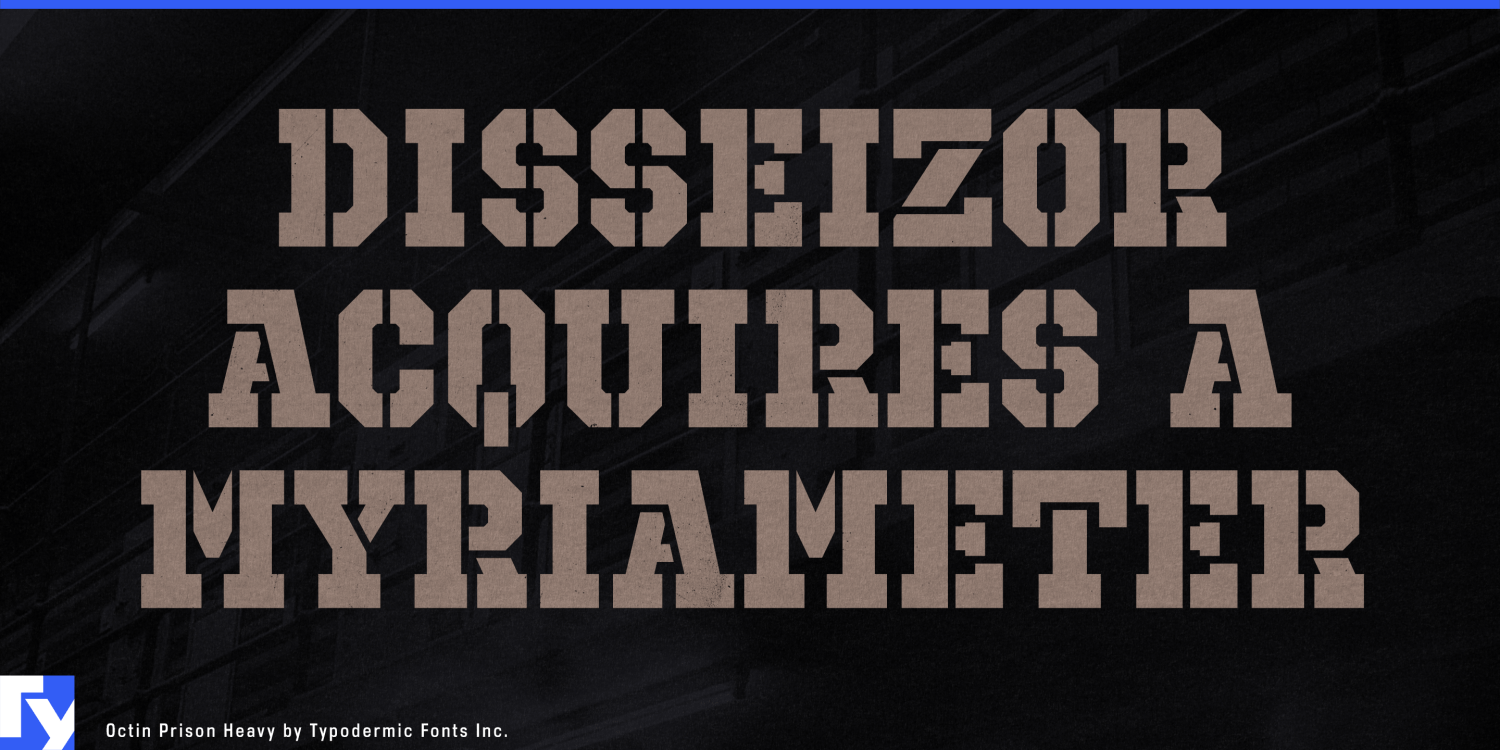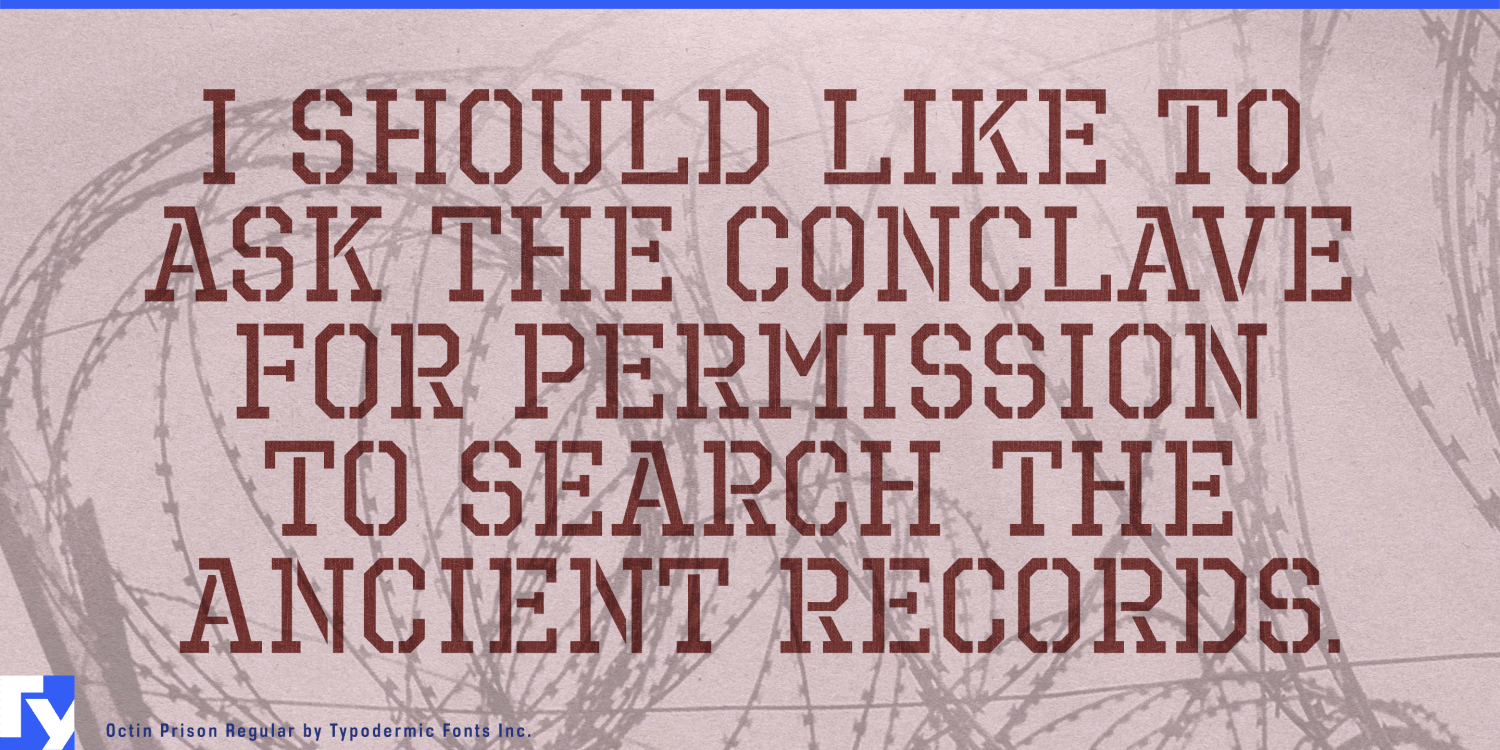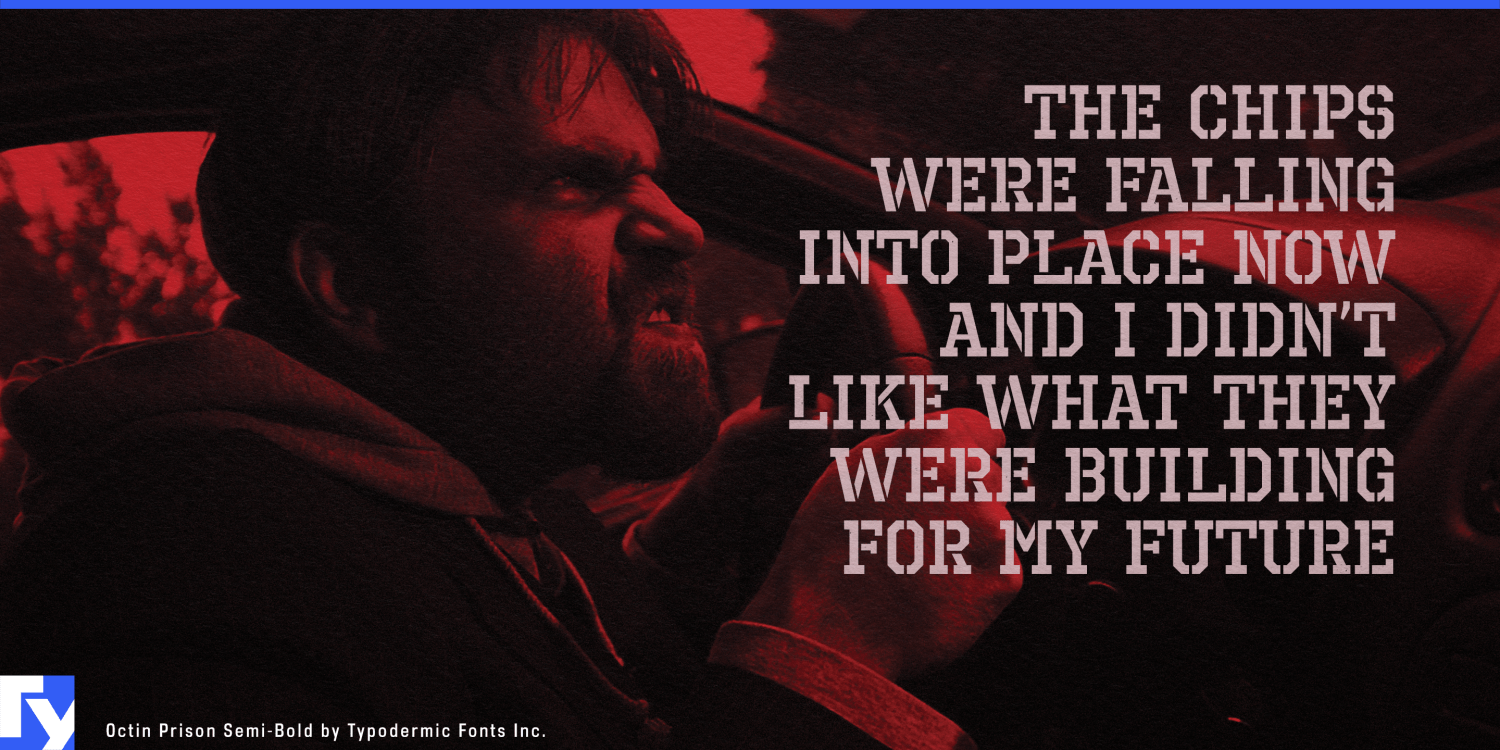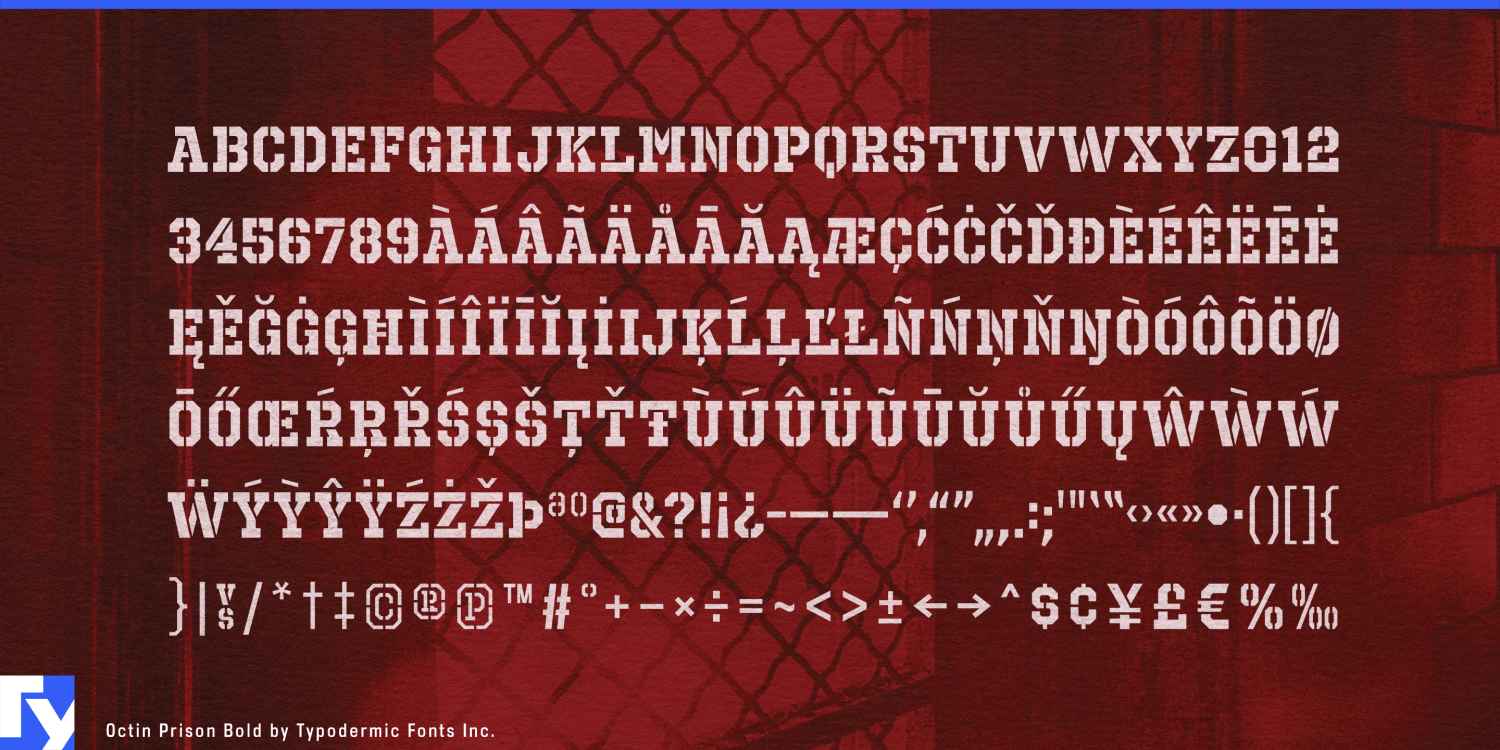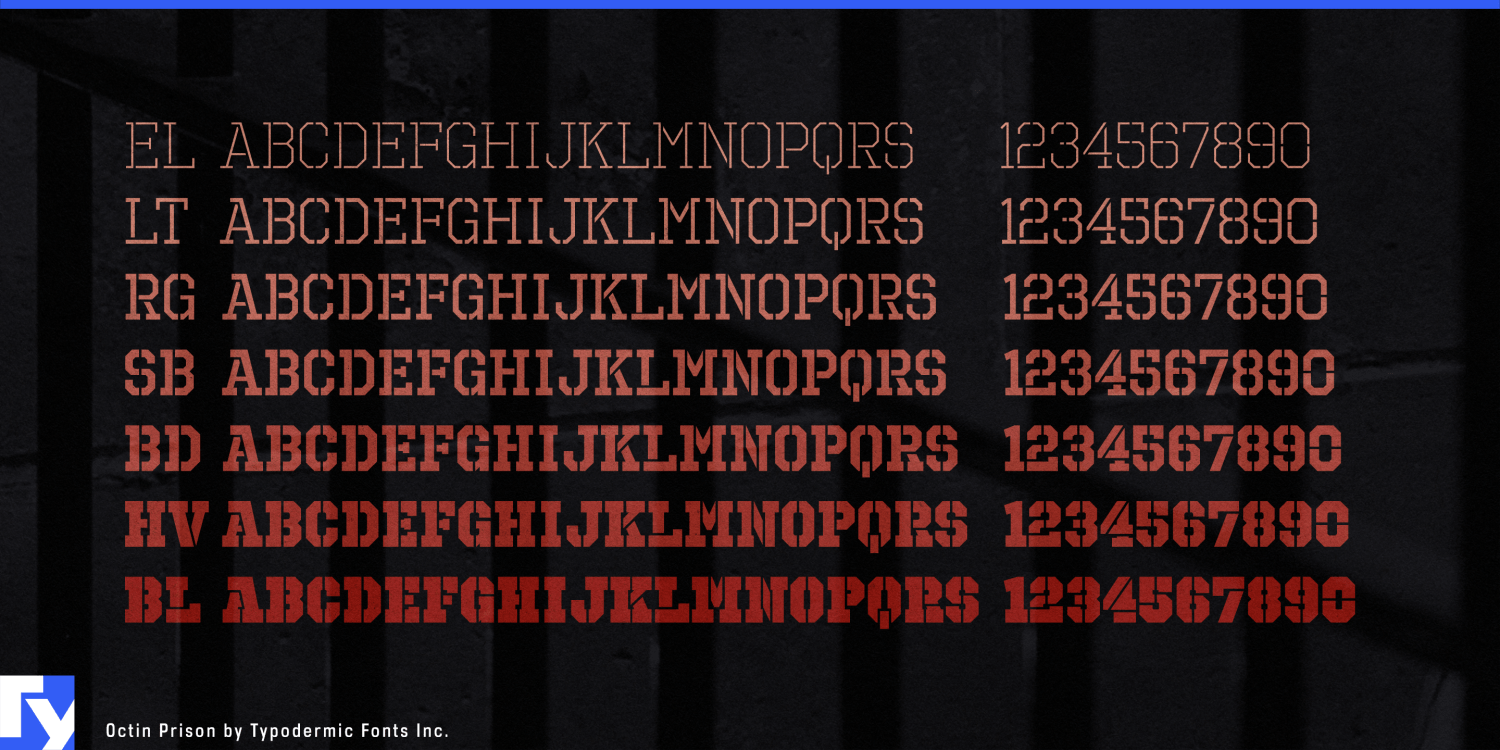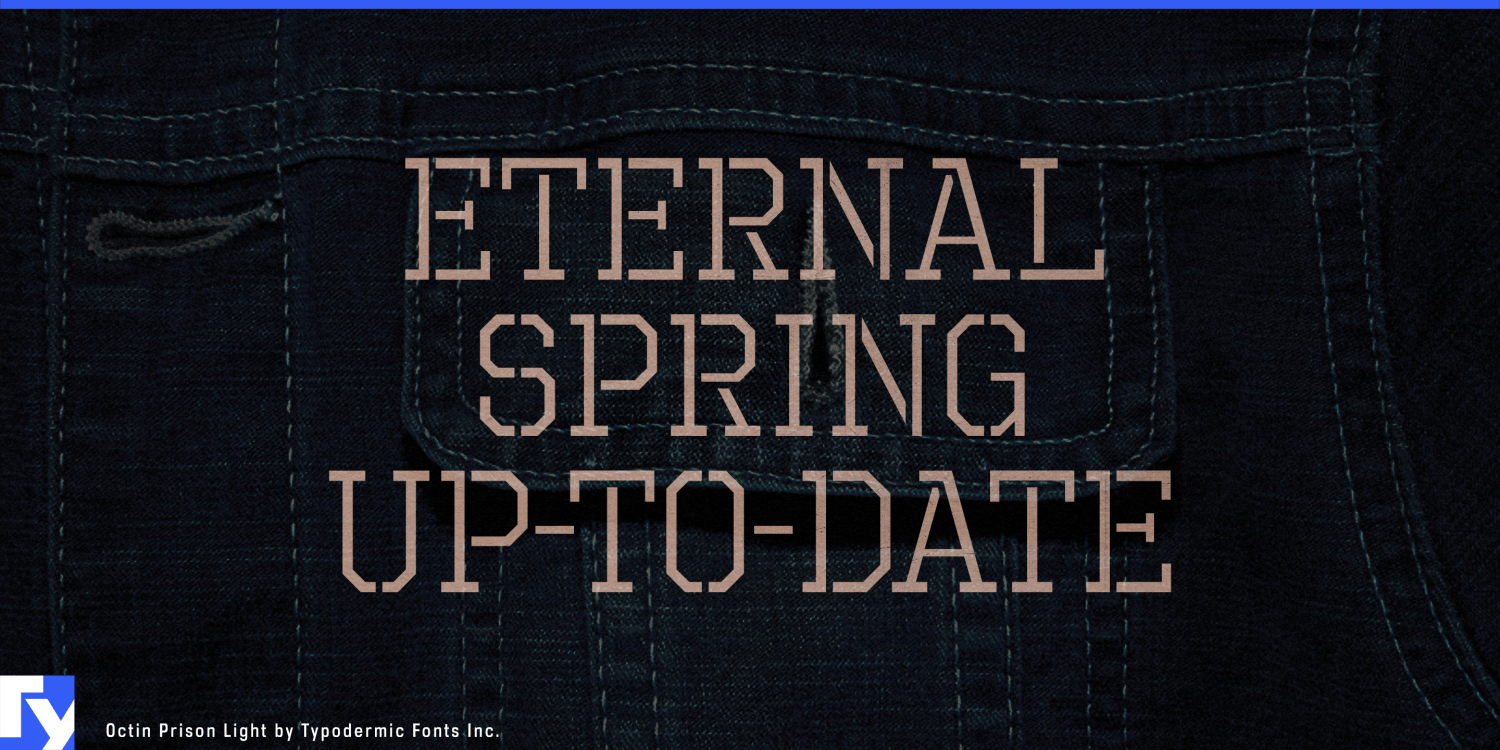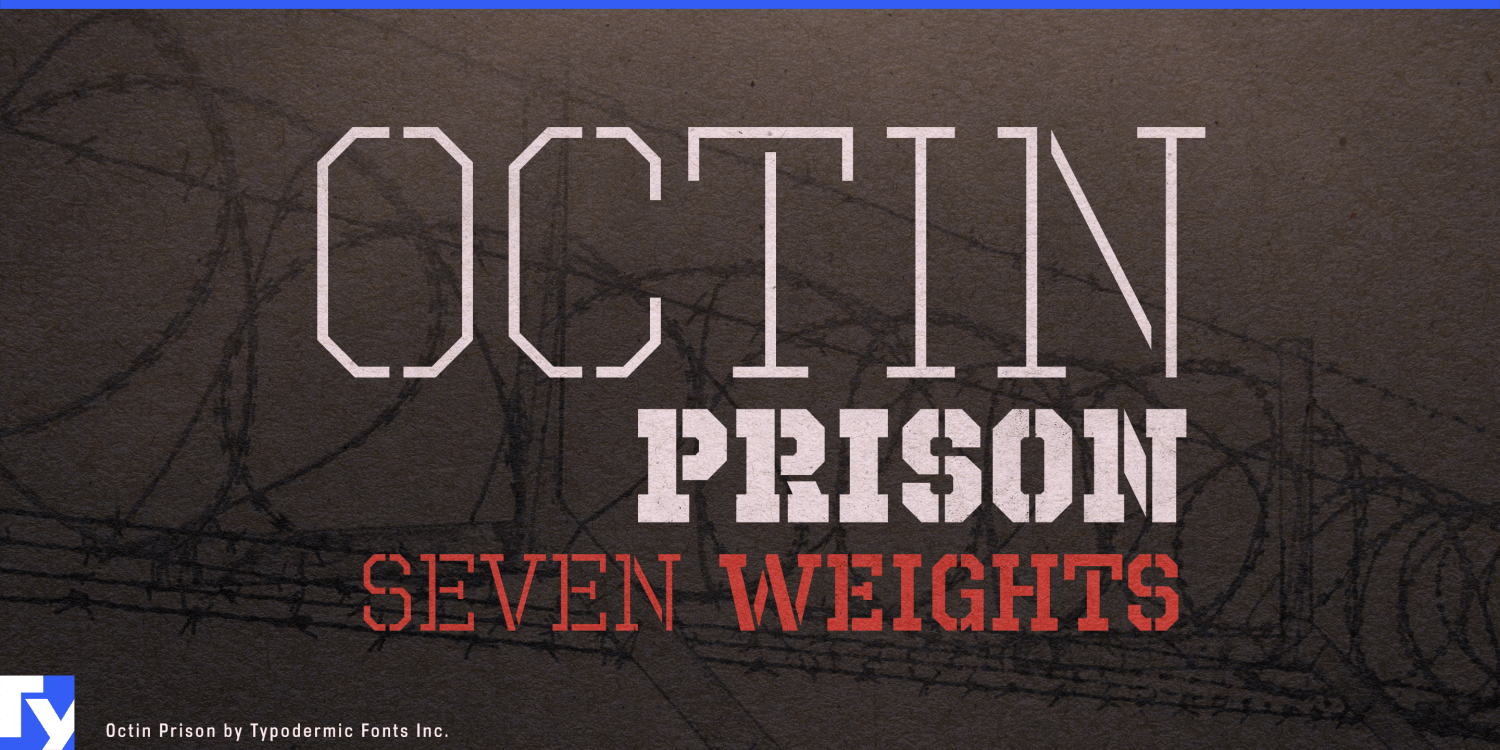
Octin Prison
About Octin Prison
Welcome to the yard, designers! Octin Prison is here to serve some serious typographic time, offering seven weights of pure, unadulterated visual toughness. This font family isn’t just doing a stint in design—it’s here for the long haul,…